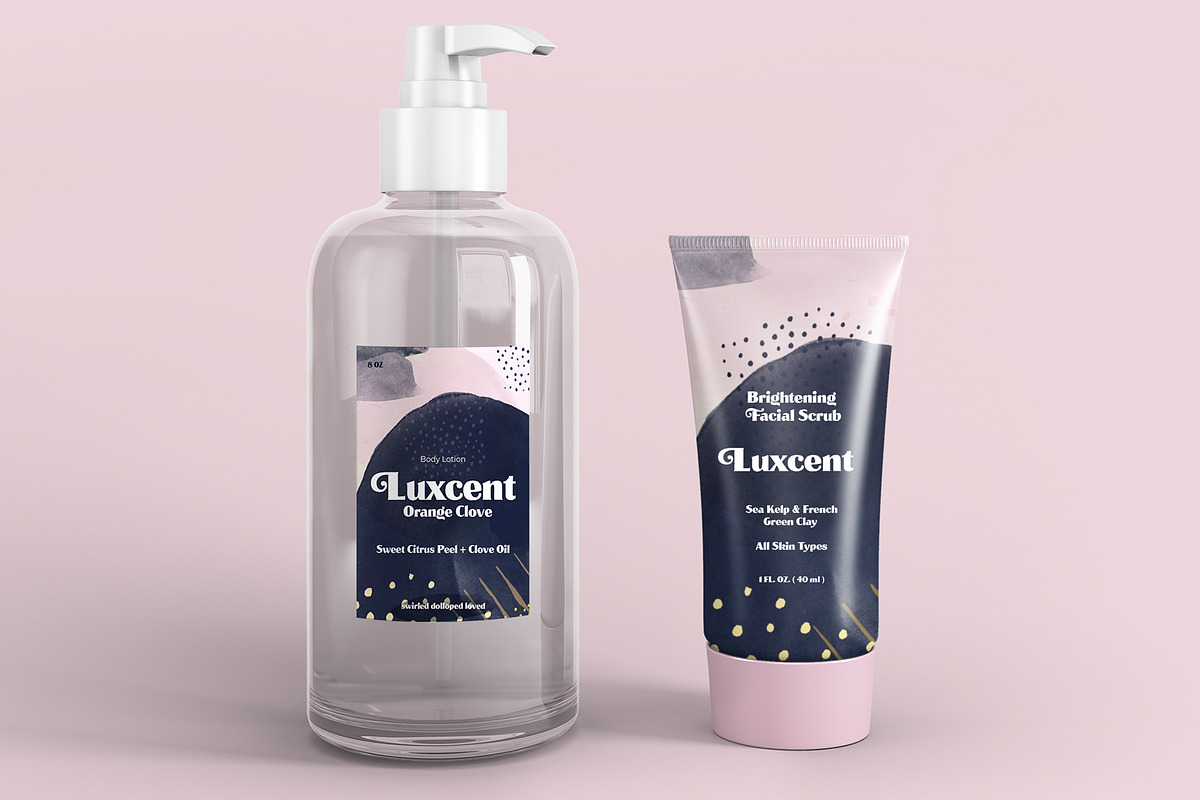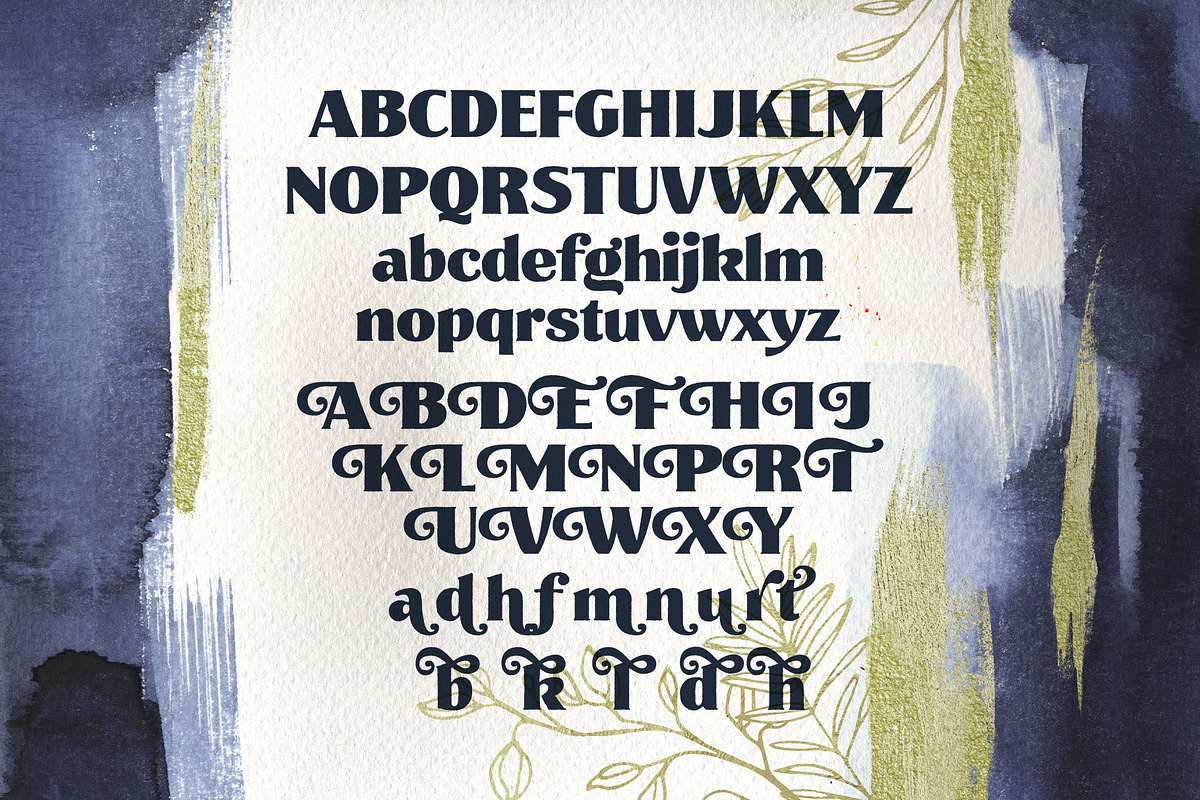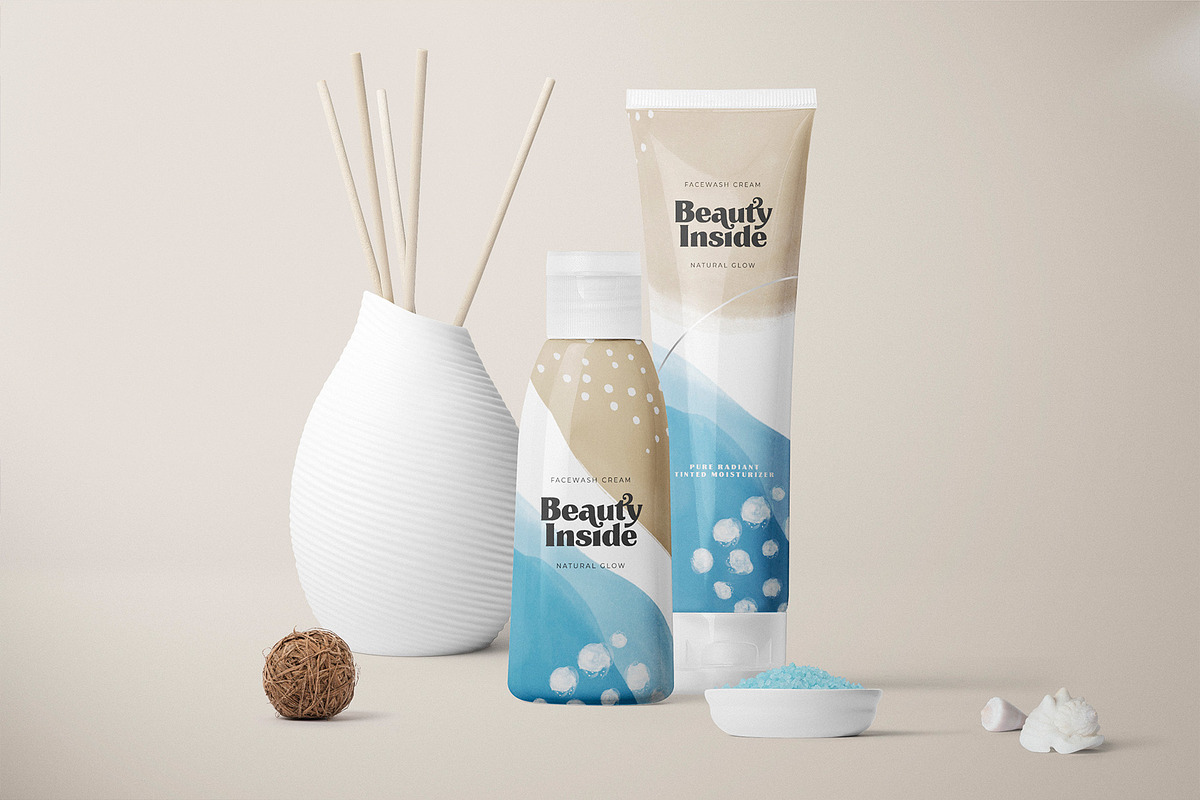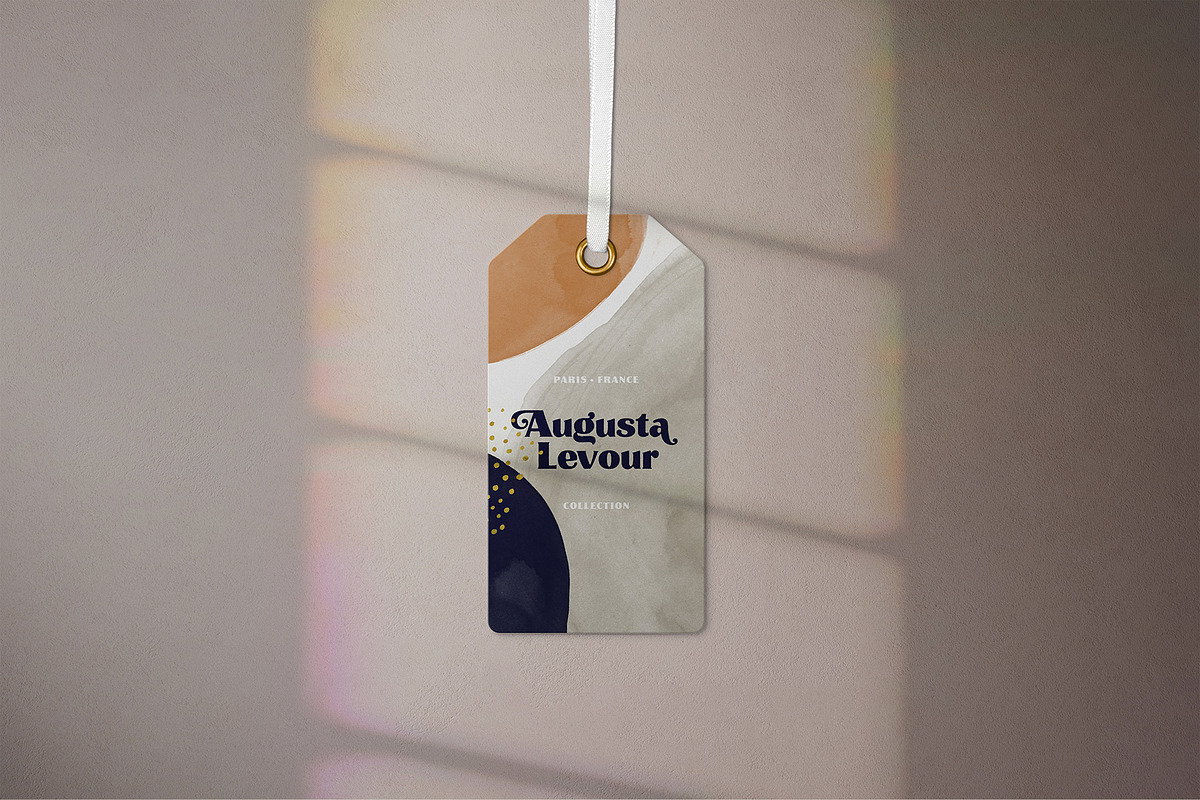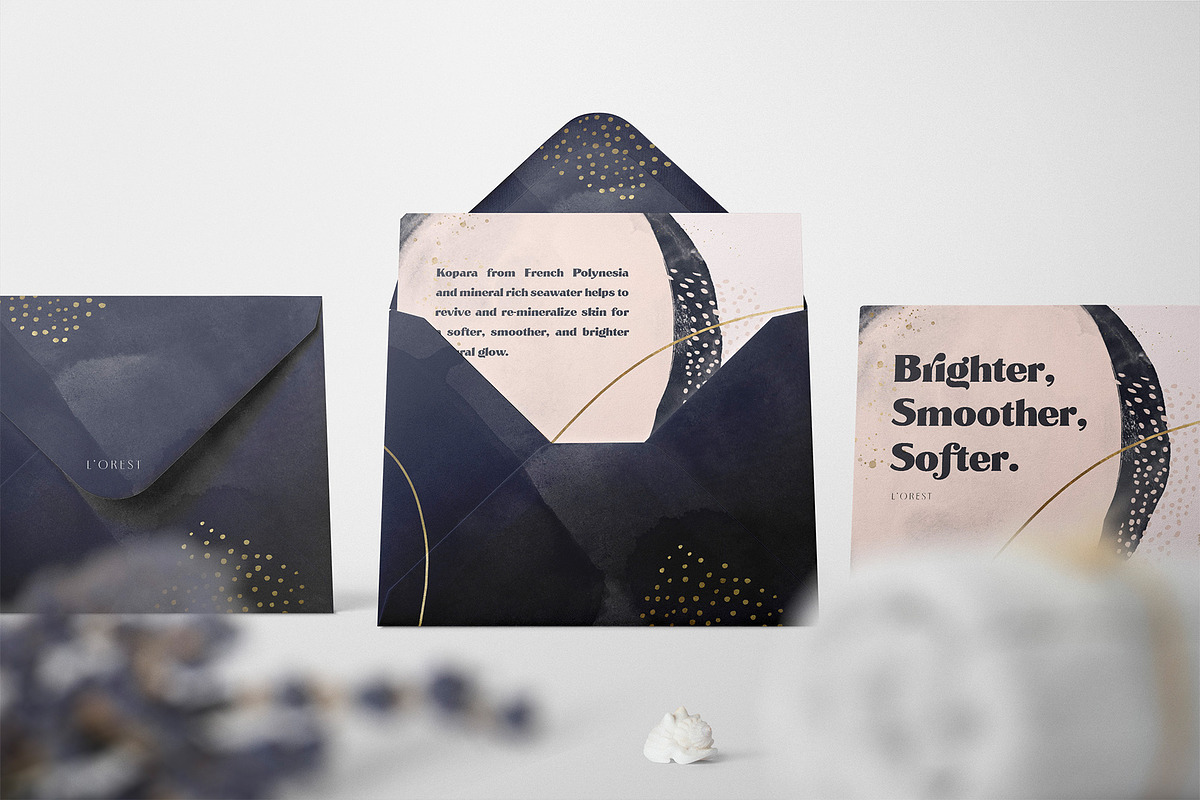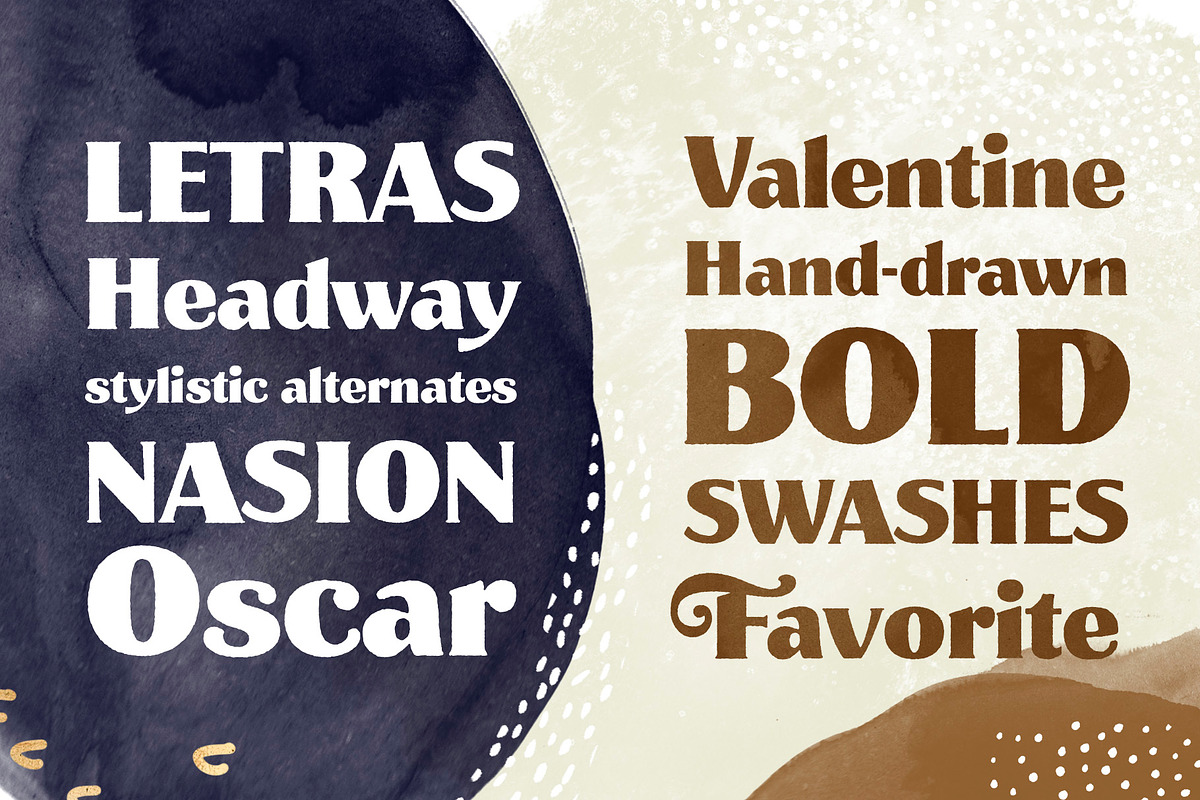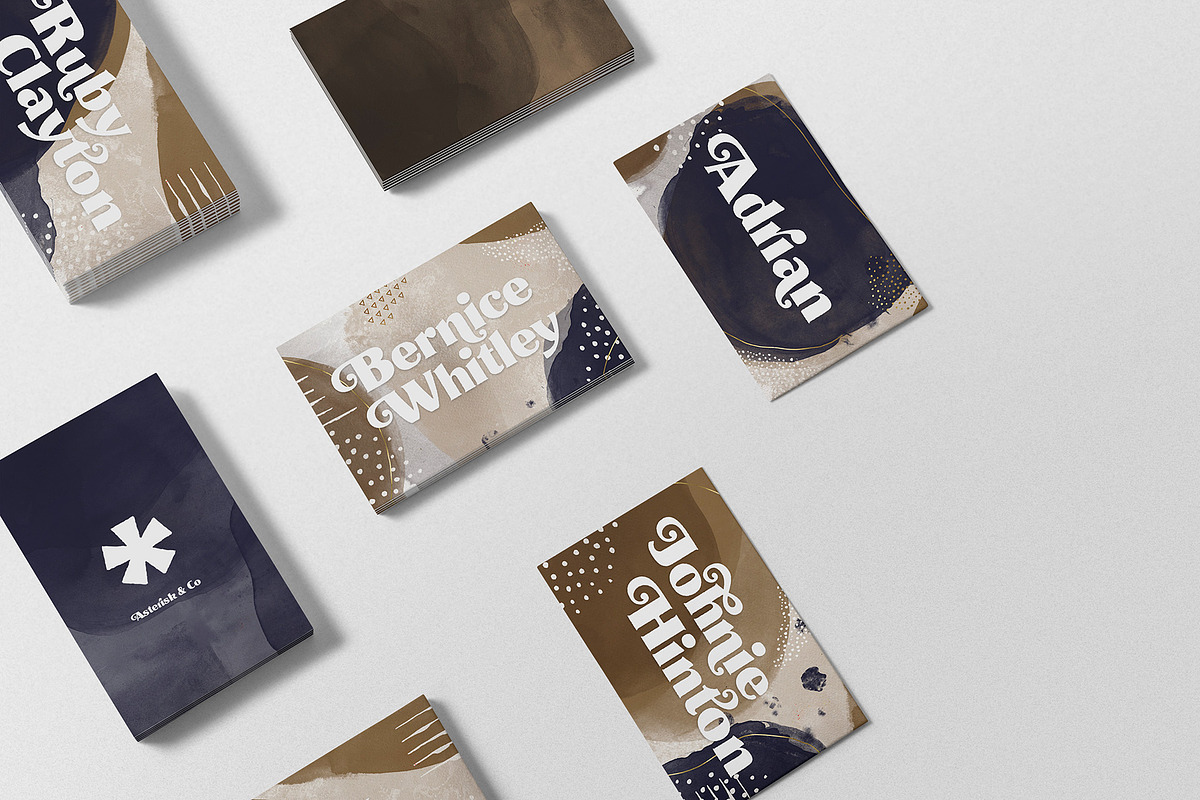
Muray House Handdrawn Font + Extras
Muray House - A Bold Hand-drawn Serif with Alternate Characters AndExtra Bonus
Muray House is a Bold serif fonts with a solid looks, balanced, and also beautiful curves in an alternate characters. A style that we choose as a Natural looks of the Hand-Drawn made Muray House as a unique identity of this fonts. Muray House also comes with alternative characters that carefully created for adding a minimalist decor of the letters. and it looks right on every character's we've made.
Stylistic alternates allows versatile design options and works perfectly for Headlines, Posters, Logos Packaging, Branding, T-shirts, Greetings, Persentation and much more.
Background bonus. We've made A watercolor, and an abstract element that fits with the Font itself. Pre-made creation, you can put any of the text inside of them. Since it's PSD files, you can also edit the color and the layout.